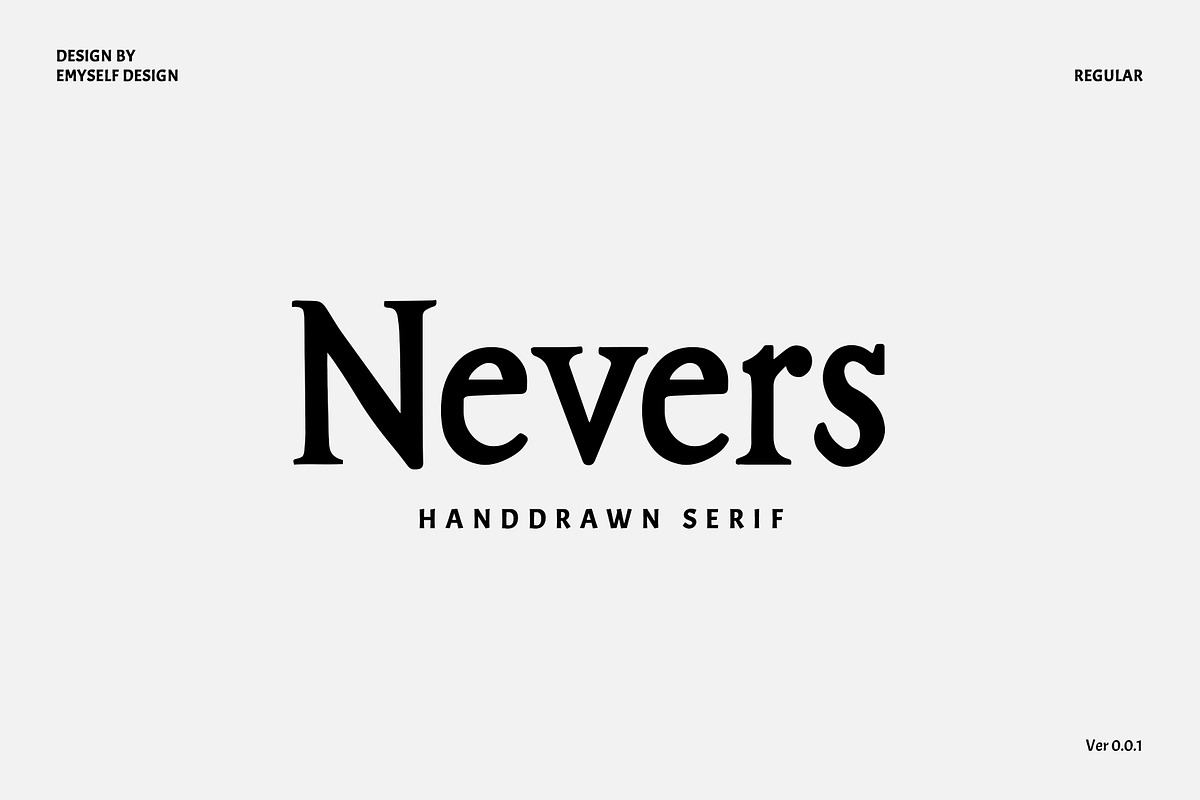
Nevers | Handdrawn Serif Font Free Download is a unique and creative typeface that combines the timeless elegance of a serif font with the charm of hand-drawn details. Perfect for branding, creative projects, packaging, invitations, and editorial layouts, Nevers adds a personal, artistic touch to any design.
With its organic lines, playful curves, and distinctive style, Nevers stands out while maintaining readability. It includes uppercase and lowercase letters, punctuation, multilingual support, and is fully compatible with both Mac and Windows platforms.